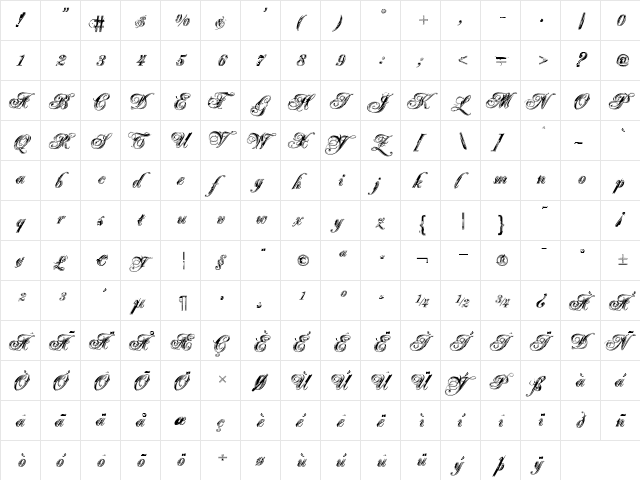
Great Circus Dirty Regular Font Preview
Great Circus Dirty Regular
Great Circus Dirty Regular Font Details
Design Context for Great Circus Dirty Typeface
Great Circus Dirty is a composed and adaptable typeface that performs quietly and consistently across a wide range of design contexts.